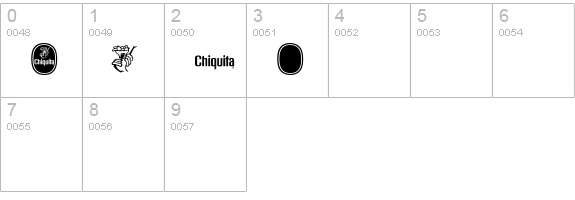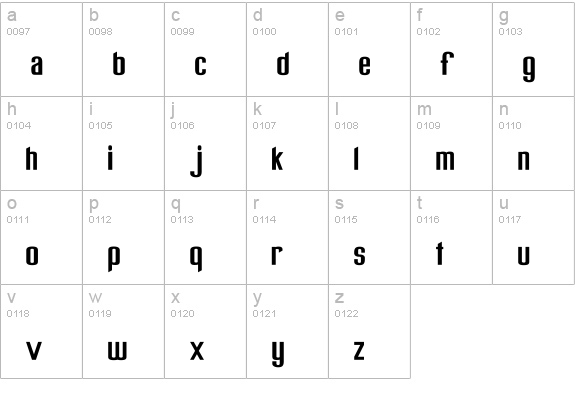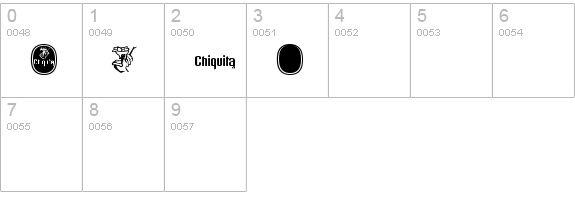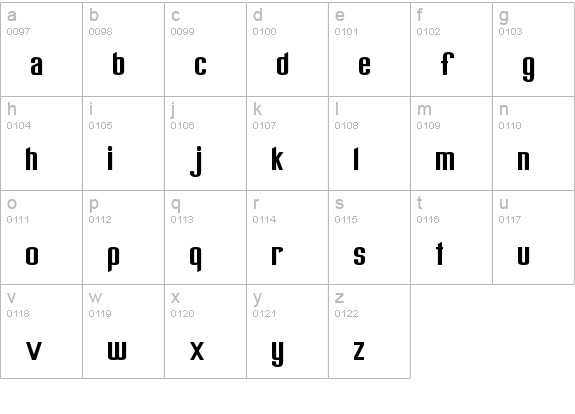
Chiquita Normal Font Details
Chiquita Normal is the standard, neutral variant in the Chiquita typeface family \xE2\x80\x94 well suited to general body text, paragraphs, and standard typographic work.
Chiquita Normal font is a versatile and modern typeface that exudes elegance and sophistication. Its clean lines and balanced proportions make it ideal for a wide range of design projects, from branding to editorial design. The timeless appeal of Chiquita Normal font will add a touch of class to any project. The best part is that Chiquita Normal font is available for free download at FontsMarket.com. This means you can easily access this beautiful font to enhance your designs without any cost. Don't miss out on the opportunity to add this stunning typeface to your collection and elevate your projects with its timeless charm.